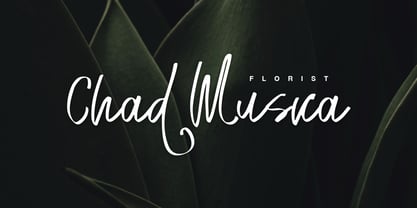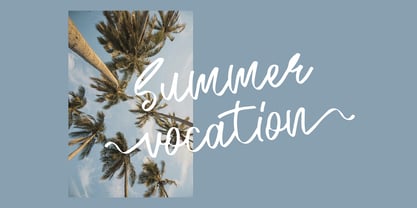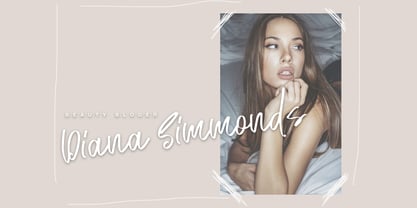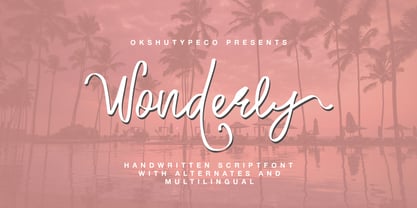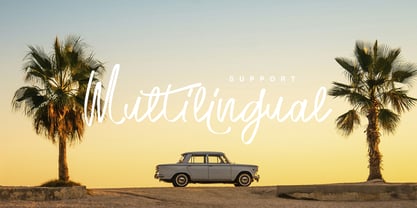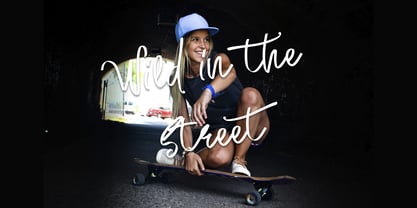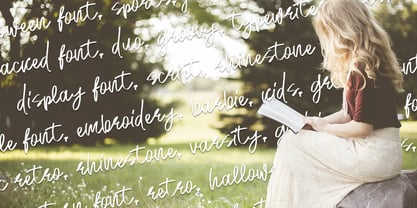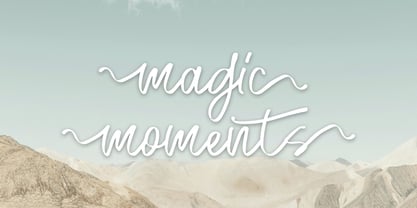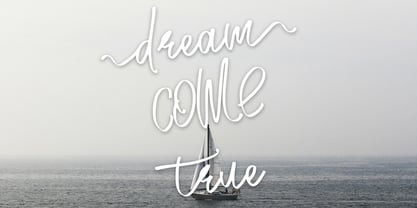
Wonderly
by OKSHUtypeCO
The Wonderly Font Family was designed by Alexander Tiunov, Oksana Shudegova and published by OKSHUtypeCO. Wonderly contains 1 styles. More about this family
Wonderly - a new fresh handmade calligraphy font. Very suitable for greeting cards, branding materials, business cards, quotes, posters, and more!This font are perfect for wedding postcard. Or you can create perfect and unique design of your logo, blog, stationery, marketing, magazines and more :) Features : UpperCase & Lowercase Numerals & Punctuations Multilingualcharacters(AÀÁÂÃÄÅCÇDÐEÈÉÊËIÌÍÎÏNÑOØÒÓÔÕÖUÙÜÚÛWYÝŸŸ - ÆŒßÞàáâãäåæçèéêëìíîïðñòóôõöøùúûüýÿ) Alternates
Designers: Alexander Tiunov, Oksana Shudegova
Foundry: OKSHUtypeCO